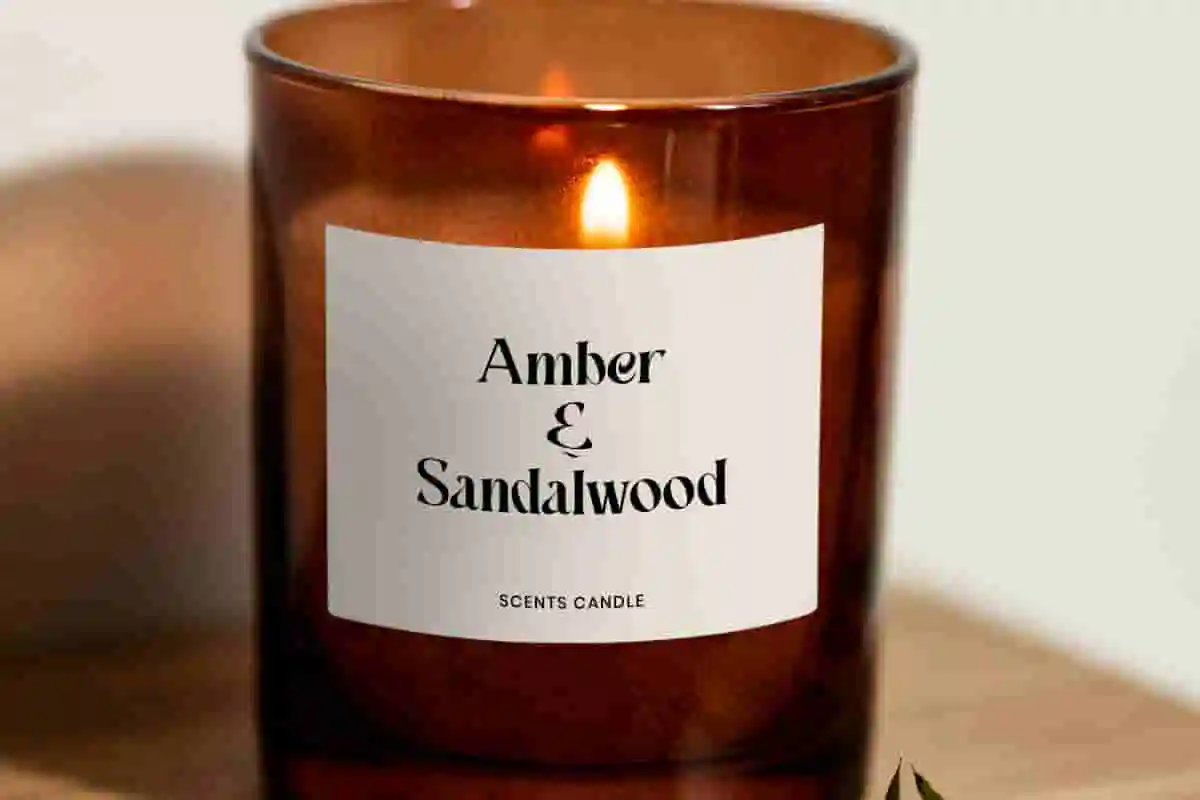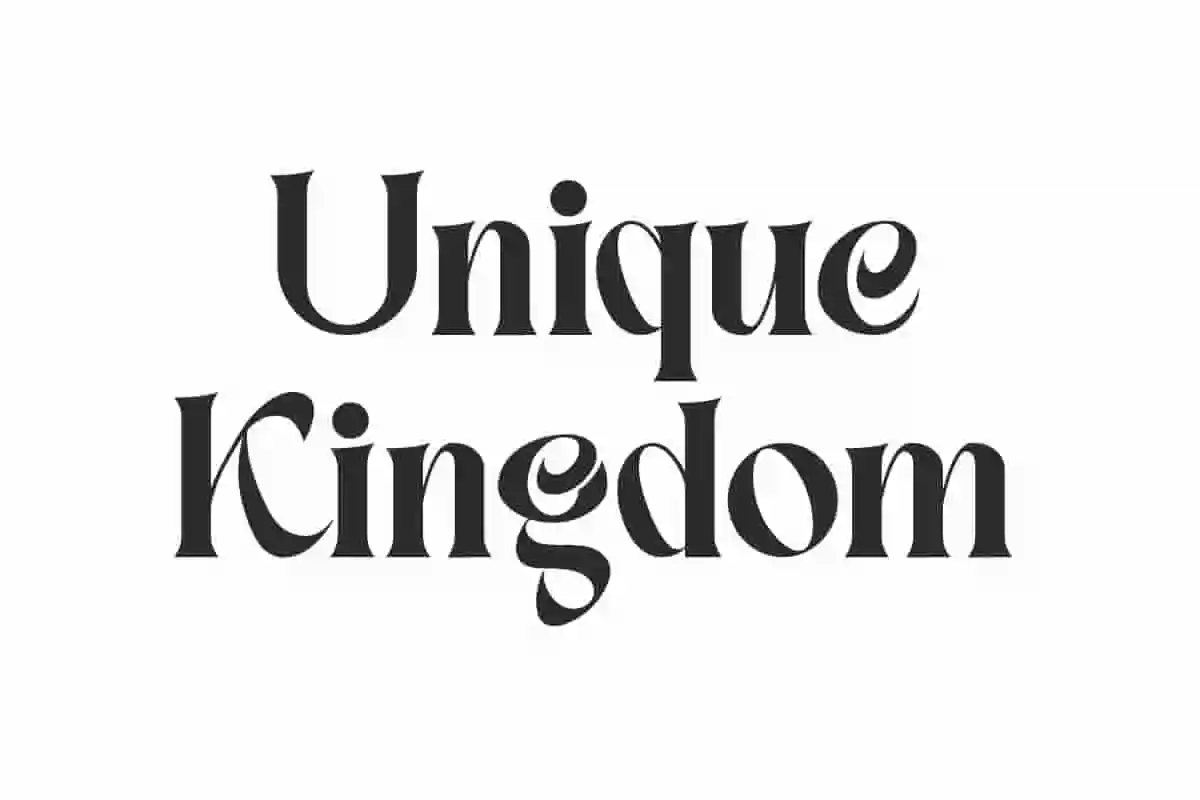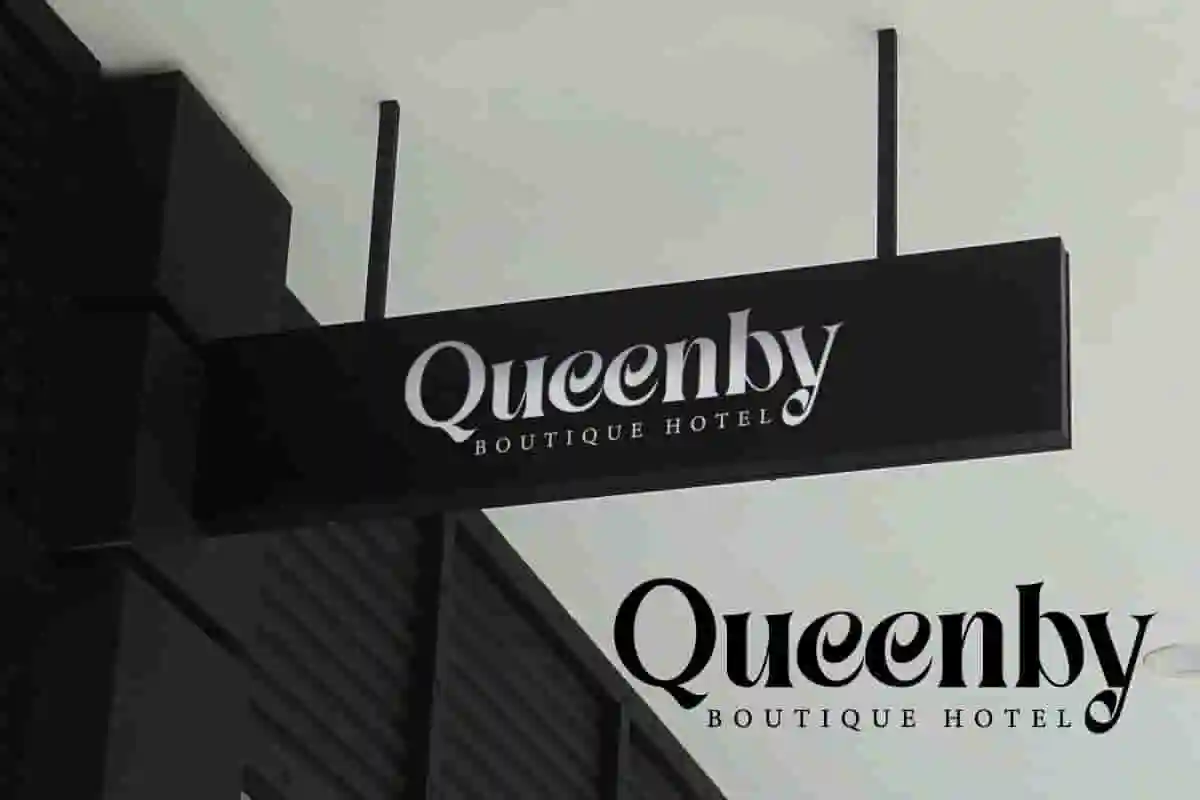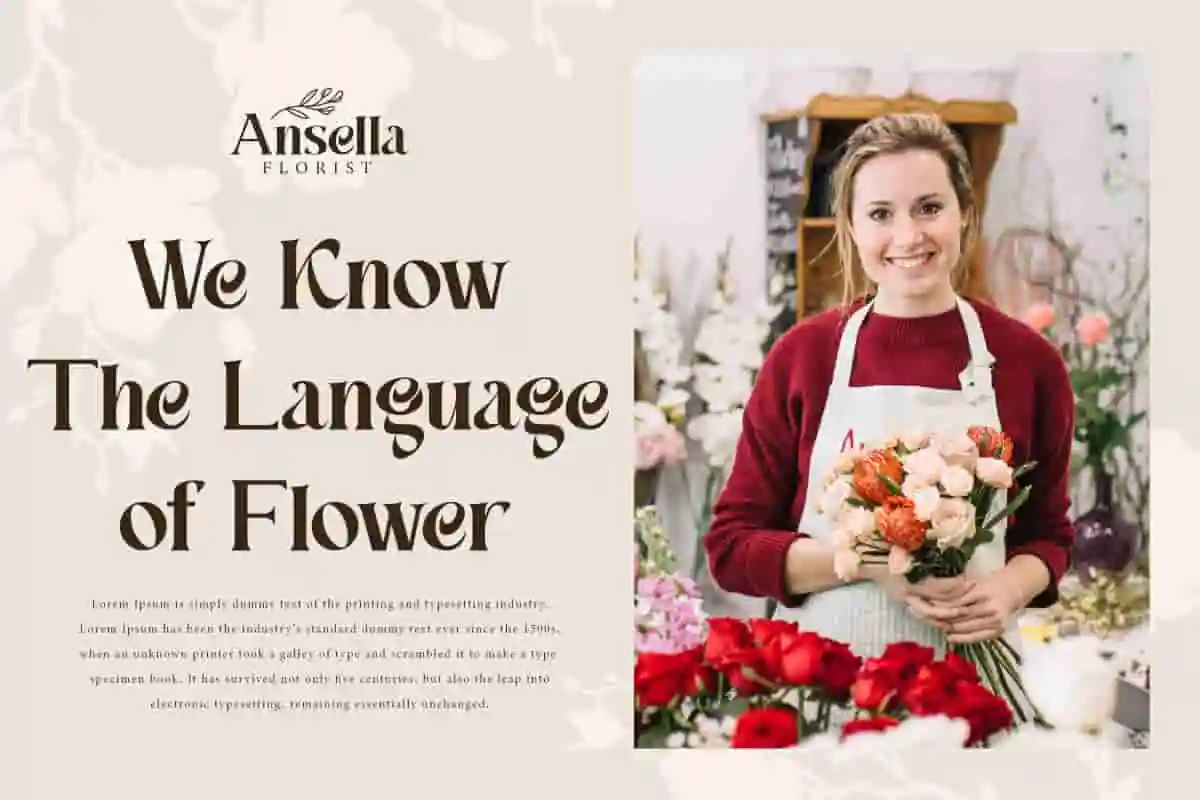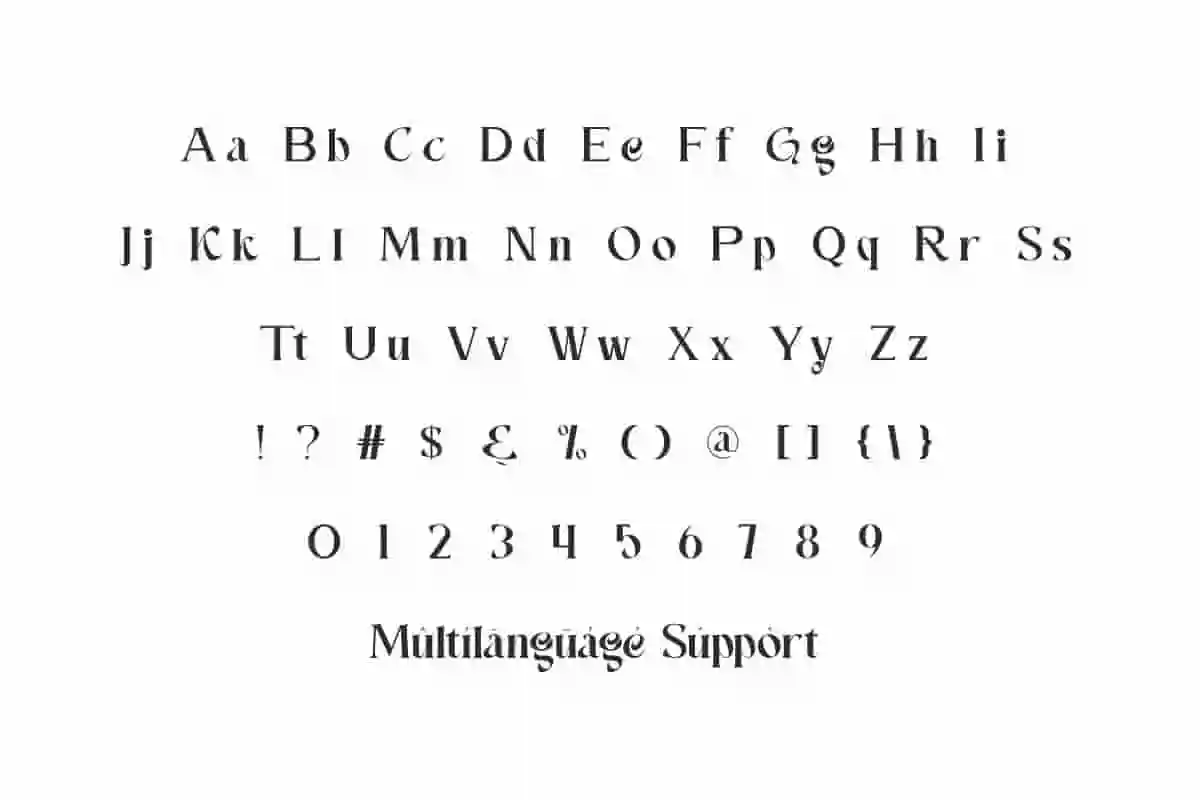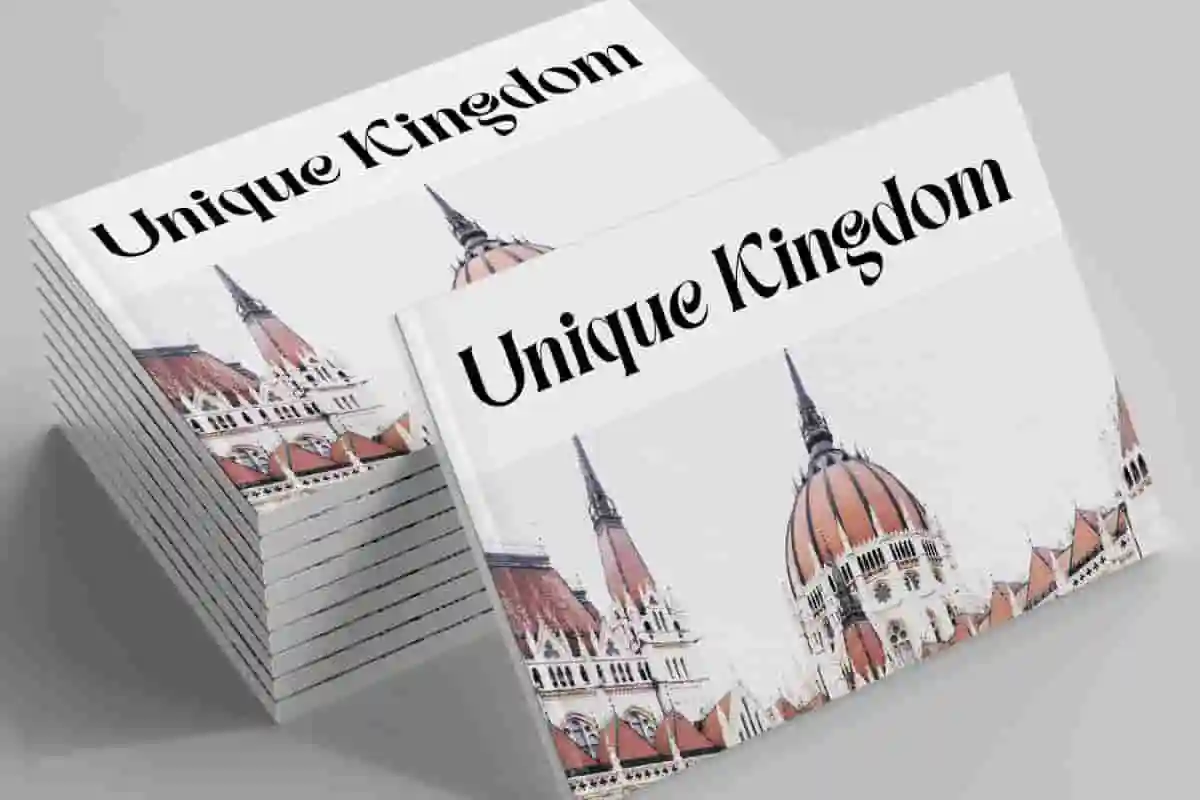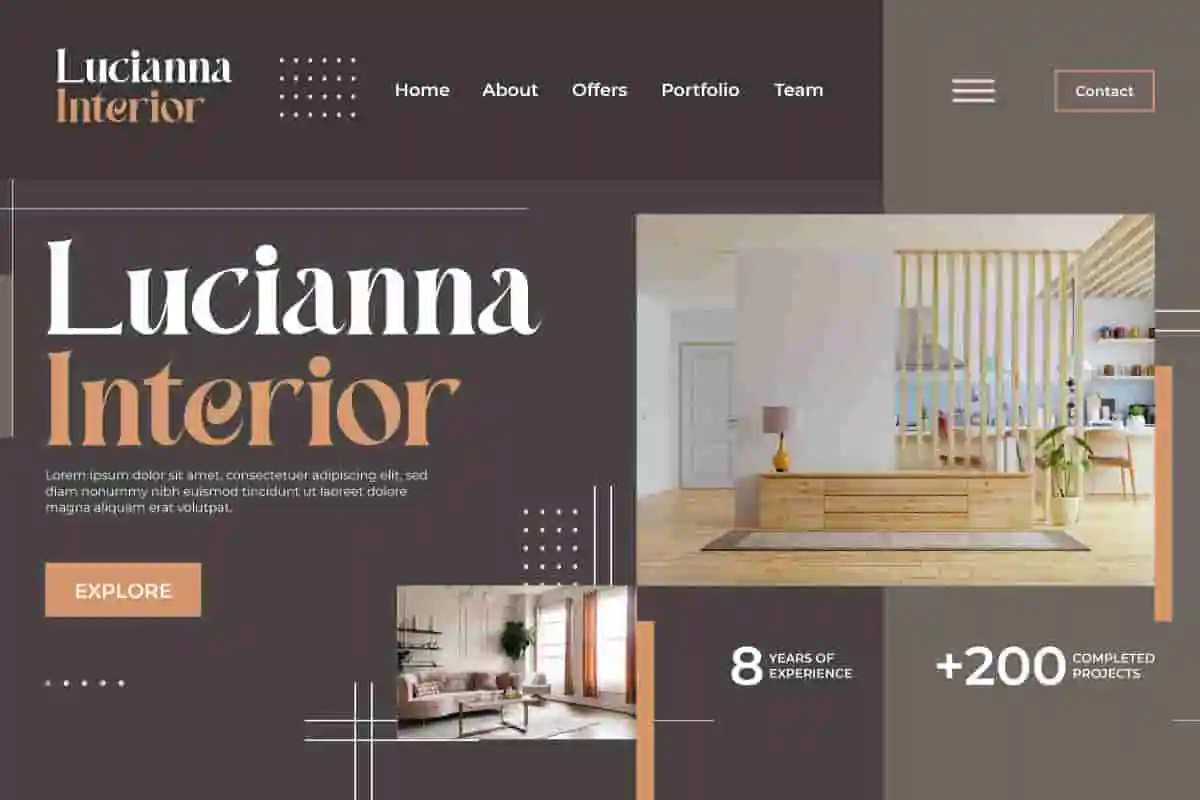
Unique Kingdom Font is a beautiful serif display font with a touch of class that will engage your audience and make your every creation stand out!
Unique Kingdom Font is a classic stylish serif display font. It certainly can help your business feel a unique royal look, such as accessories, architect, bakery, boutique, clothing brand, cosmetic, café, fashion designer, film, florist, furniture, historical building, hotel, interior design, jewelry, museum, photography, printing, publishing, real estate, restaurant, skincare, spa salon, social media content, writer, etc.
Unique Kingdom Font includes full set of Uppercase and Lowercase Basic Characters, Number, Punctuation, and Symbol. It’s the perfect tool to create amazing elegant designs, such as apps, billboard, brochure, business card, cover, flyer, header, labels on scents candles, luxury branding materials, packaging design, poster, quote, screen print, signage, stationery, sticker, thank you card, title, website, and many more.